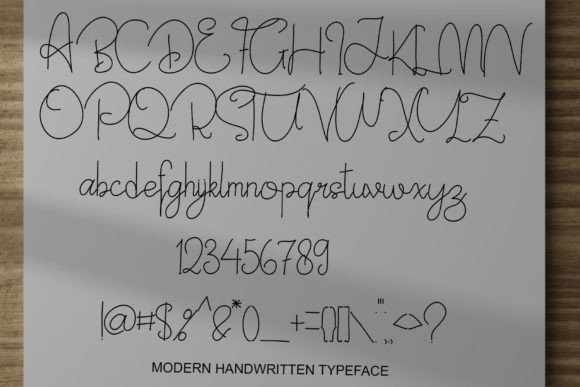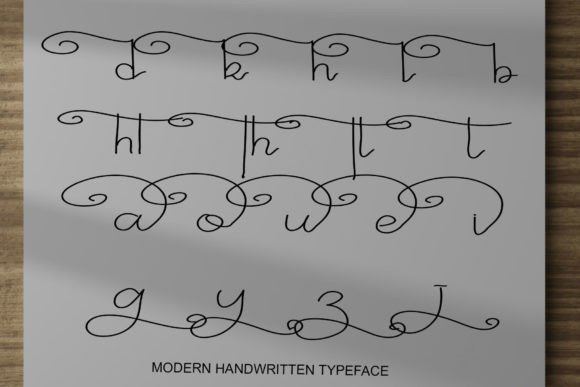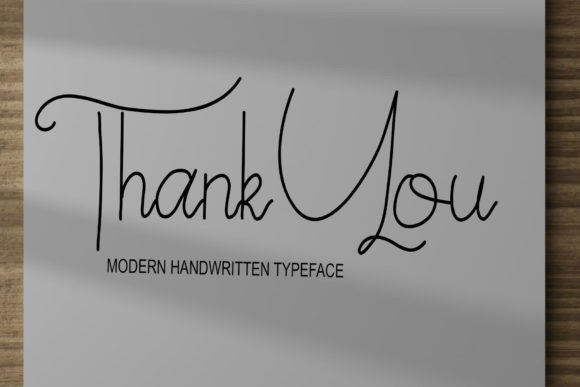
Introduction to Jingea Font
Jingea is a script font written by hand using a tablet.
This font is very simple and can be used for websites, wedding invitations, business cards, signatures, and advertisements, be it product advertisements or other advertisements Even though it looks simple, this font still looks cool and stylish.
Key Features of Jingea Font